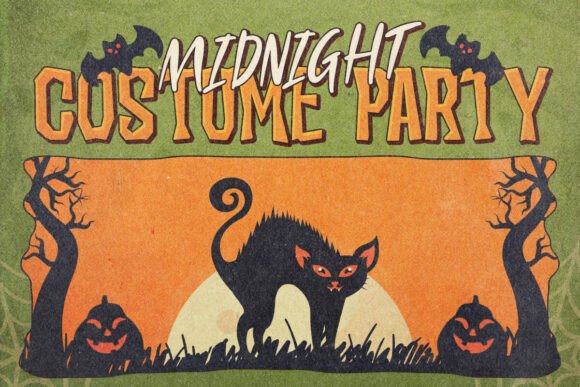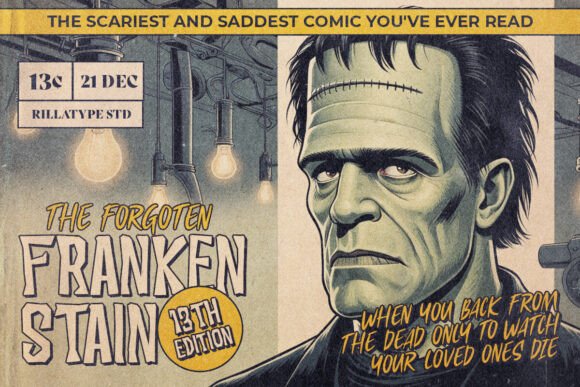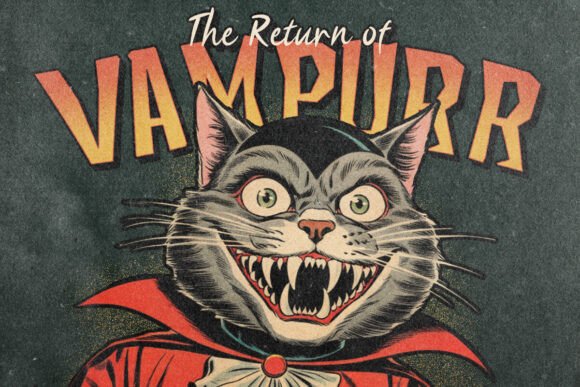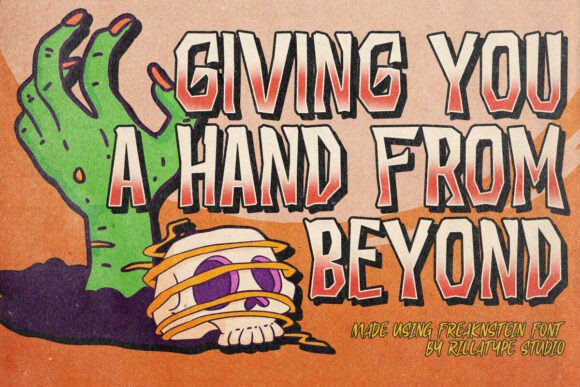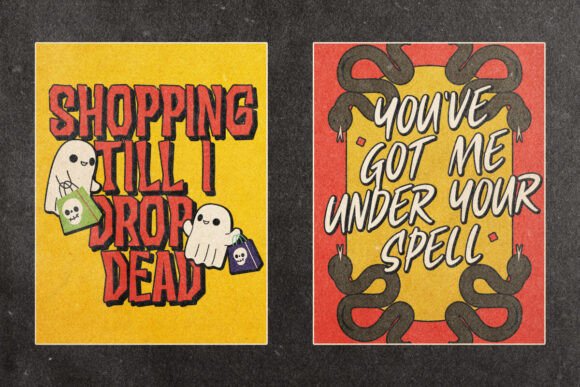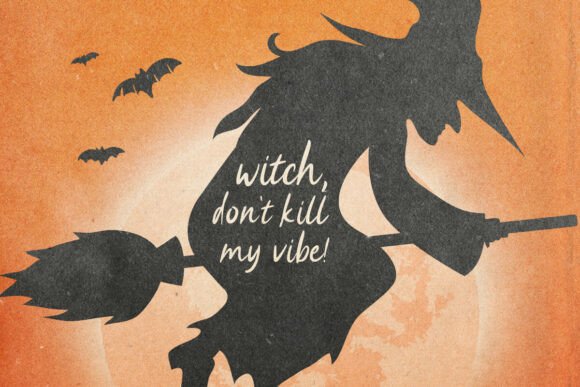
Unleashing the Eerie Charm of Freaknstein Font
I’ll never forget the time I was working on a Halloween-themed project for a client, and I just couldn’t find the right font to capture the spooky essence I was going for. The client wanted something that would send shivers down the spine, but still maintain a level of elegance and sophistication. It was like trying to find a needle in a haystack, until I stumbled upon the Freaknstein font duo. This game-changing font combination consists of two distinct styles: Display and Script, which work together in perfect harmony to bring your terrifying concepts to life.
The Freaknstein Font Duo: A Perfect Blend of Fear and Elegance
Freaknstein is a unique font duo designed to capture the chilling essence of horror. The Display font brings bold, striking letters perfect for spine-tingling titles, while the Script font adds an eerie, handwritten touch to your designs. Whether you’re creating Halloween posters, spooky invitations, or any project that needs a dark, haunted twist, Freaknstein is the perfect choice.
- ✨ Versatility: Freaknstein’s two distinct styles offer a wide range of creative possibilities, from bold titles to elegant scripts.
- ✅ Ease of use: The font duo is incredibly easy to use, even for those who are new to design.
- 🔥 Impactful: Freaknstein’s bold and striking letters are sure to grab attention and leave a lasting impression.
- ⚠️ Glyph limitations: While Freaknstein has a wide range of glyphs, some users may find that it lacks certain special characters.
- 🤔 Pairing challenges: As with any font duo, finding the perfect pairing of Display and Script can take some experimentation.
The Story Behind Freaknstein: A Designer Inspiration
Freaknstein was inspired by the classic horror movies of the 1920s and 1930s. The designer’s goal was to create a font duo that would capture the essence of horror and the supernatural, while still maintaining a level of elegance and sophistication. The result is a font duo that is both terrifying and beautiful.
Q: What type of projects is Freaknstein best suited for?
A: Freaknstein is perfect for Halloween-themed projects, horror movies, spooky invitations, and any design that requires a dark and haunted twist.